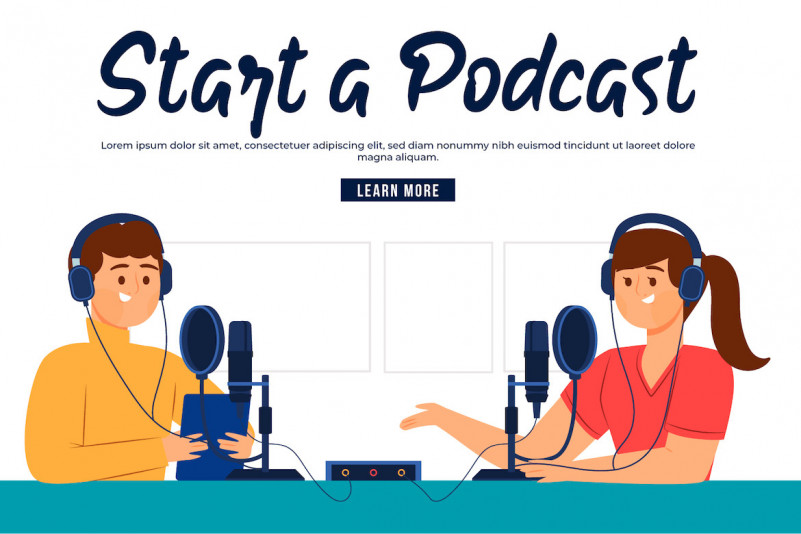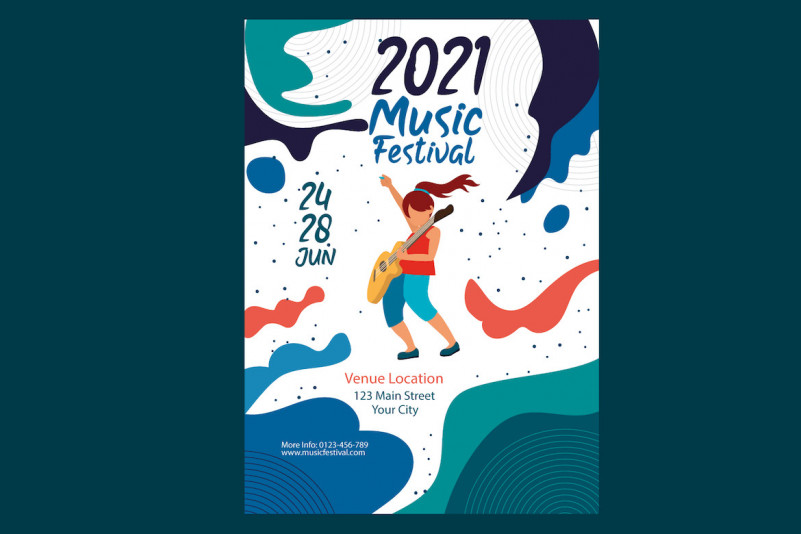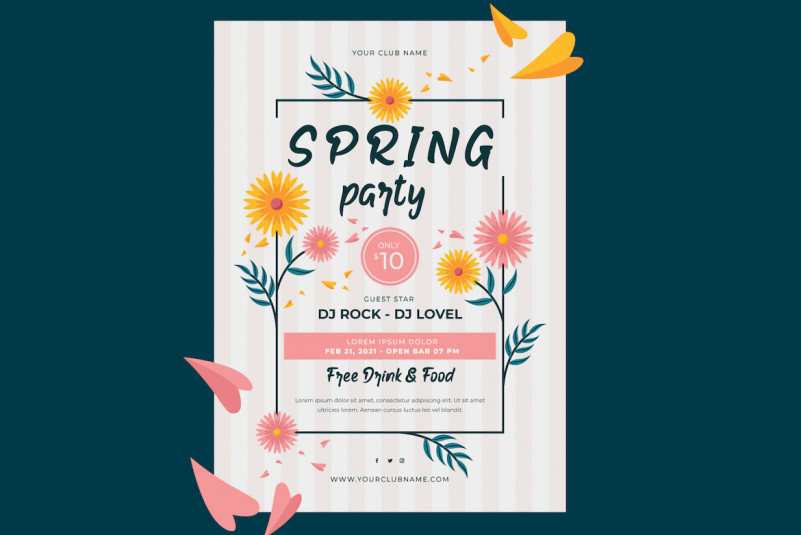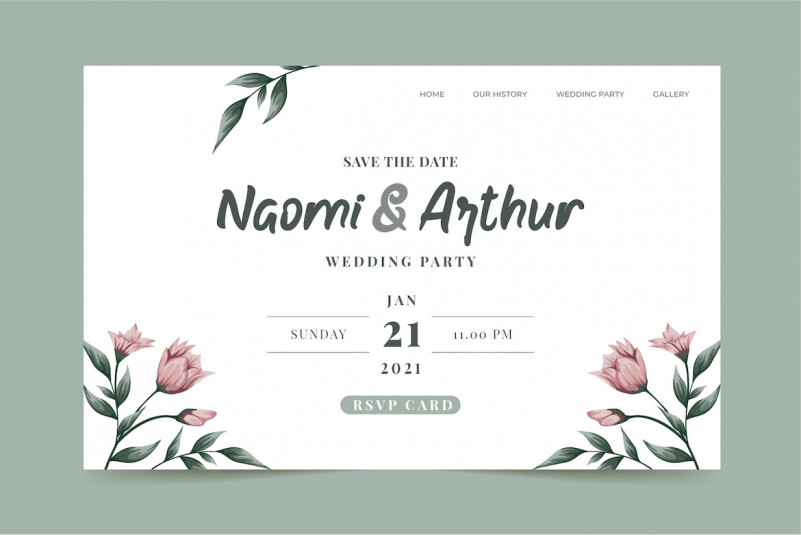
Backer Font
Backer Display Font
This is a font designed using a gentle, yet beautiful and elegant hand touch, this font looks very nice to use in the special design project’s text and headers friend.
Backer Display Font is handwritten. This font has an original and extraordinary design. This font is perfect for strong text with displays for a wide variety of branding, advertisements, posters, banners, packaging, podcasts, outdoor activities, clothing, quotes, drinks, and more.